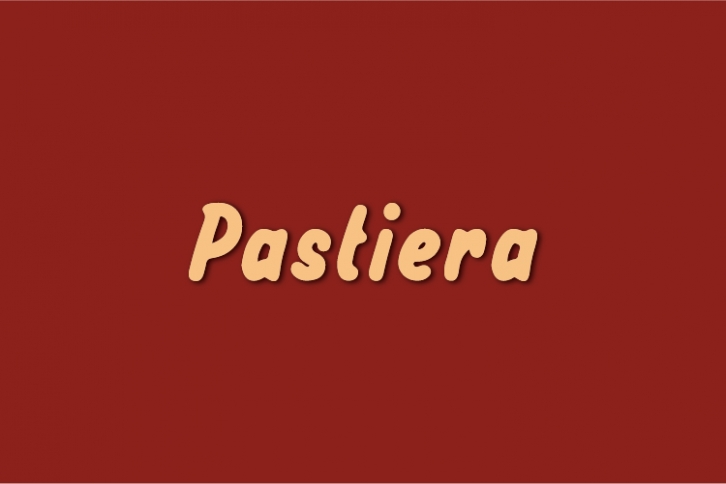
Pastiera is a natural display font made without changing a single node in each character’s indentation. This makes this font very interesting and unique. Perfect for quotes, notes, tees, and any product design.